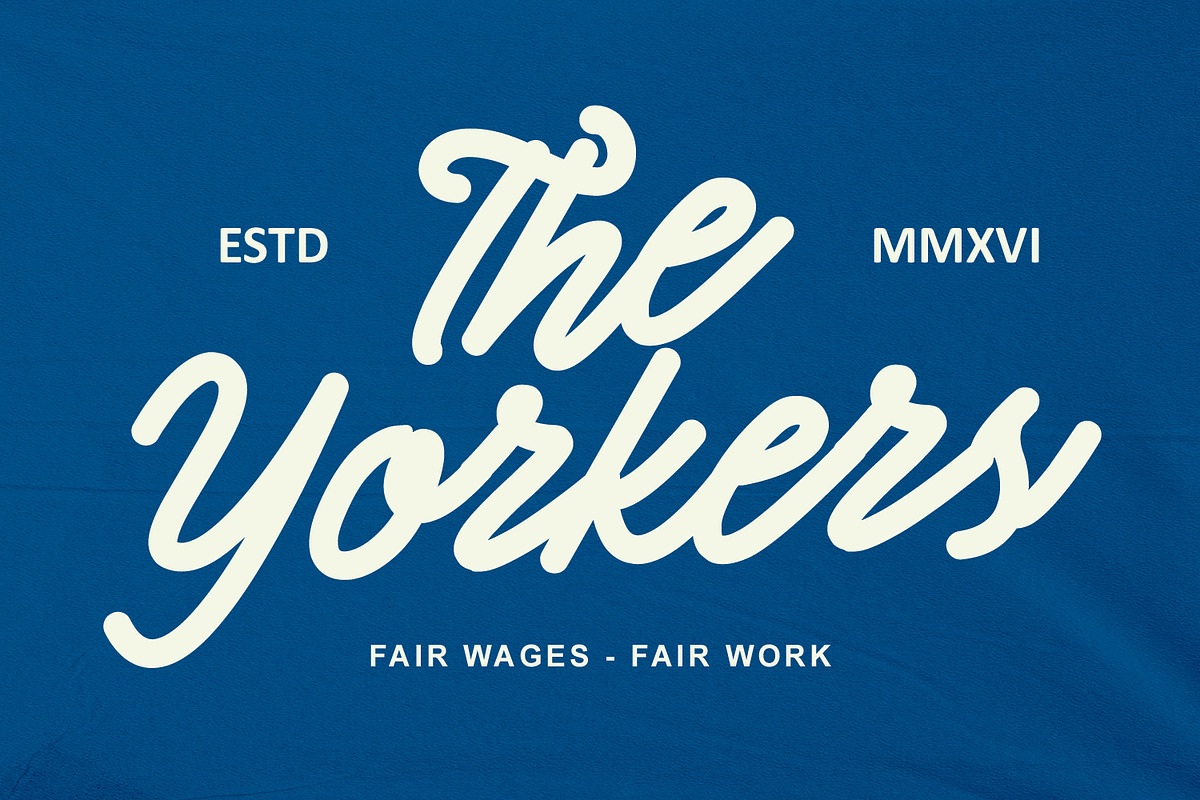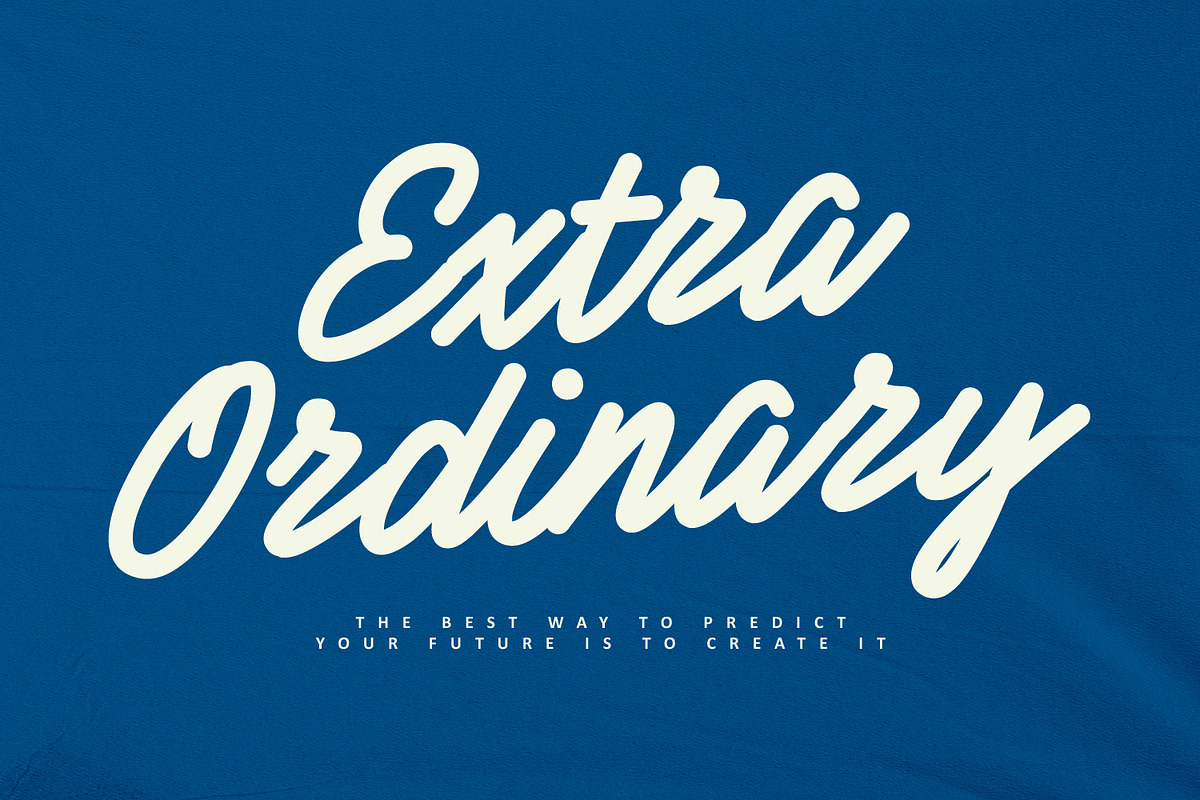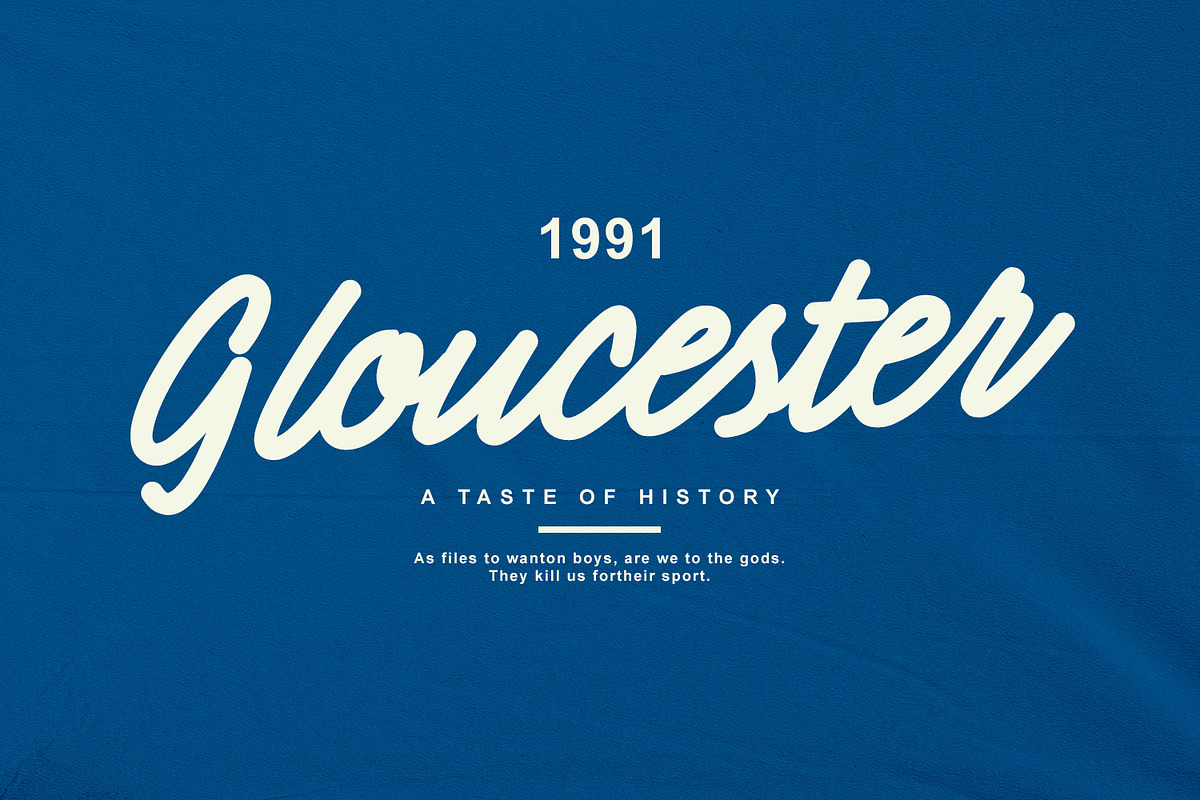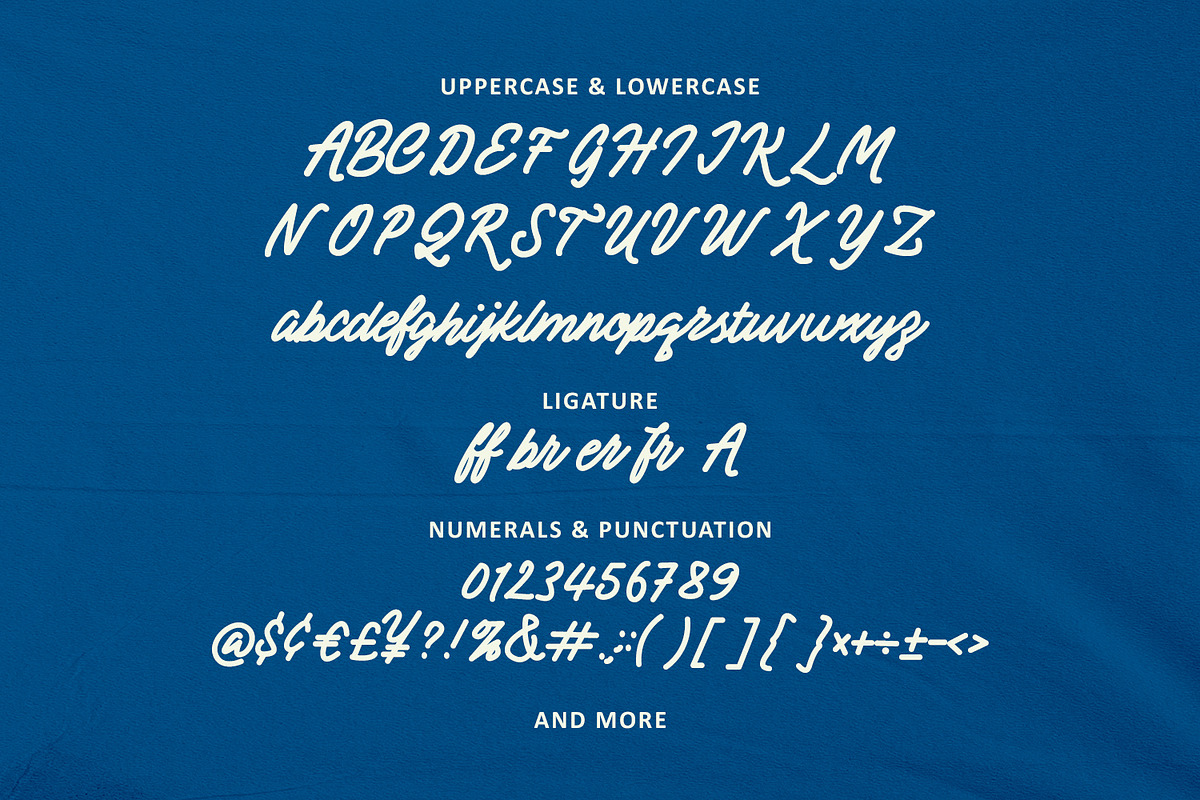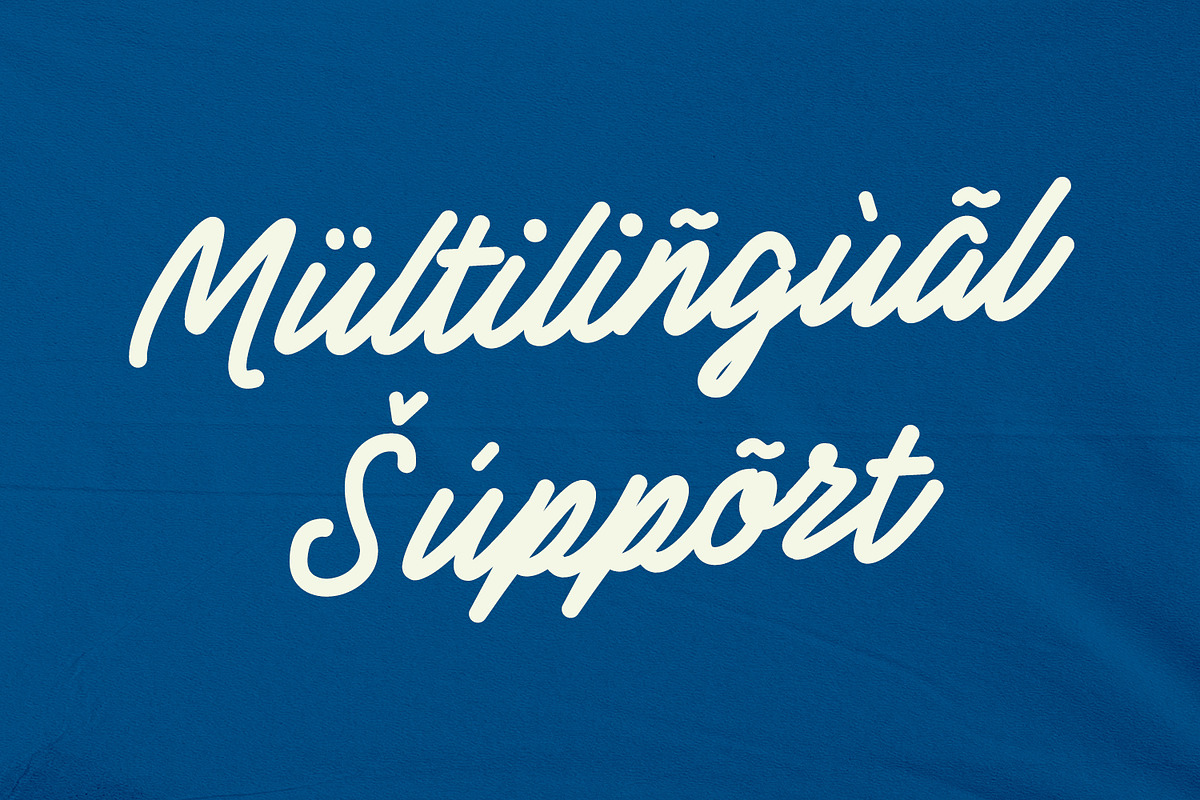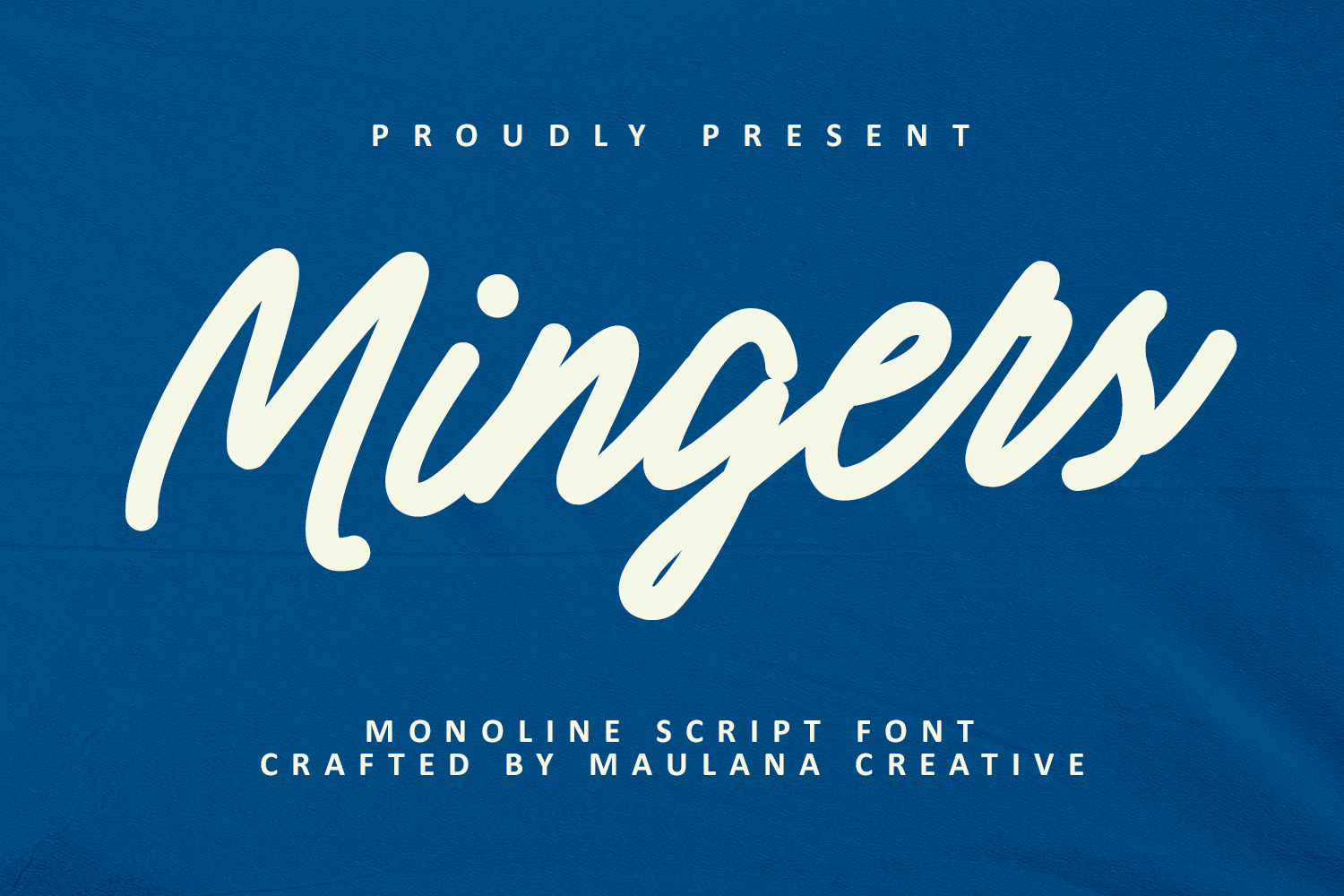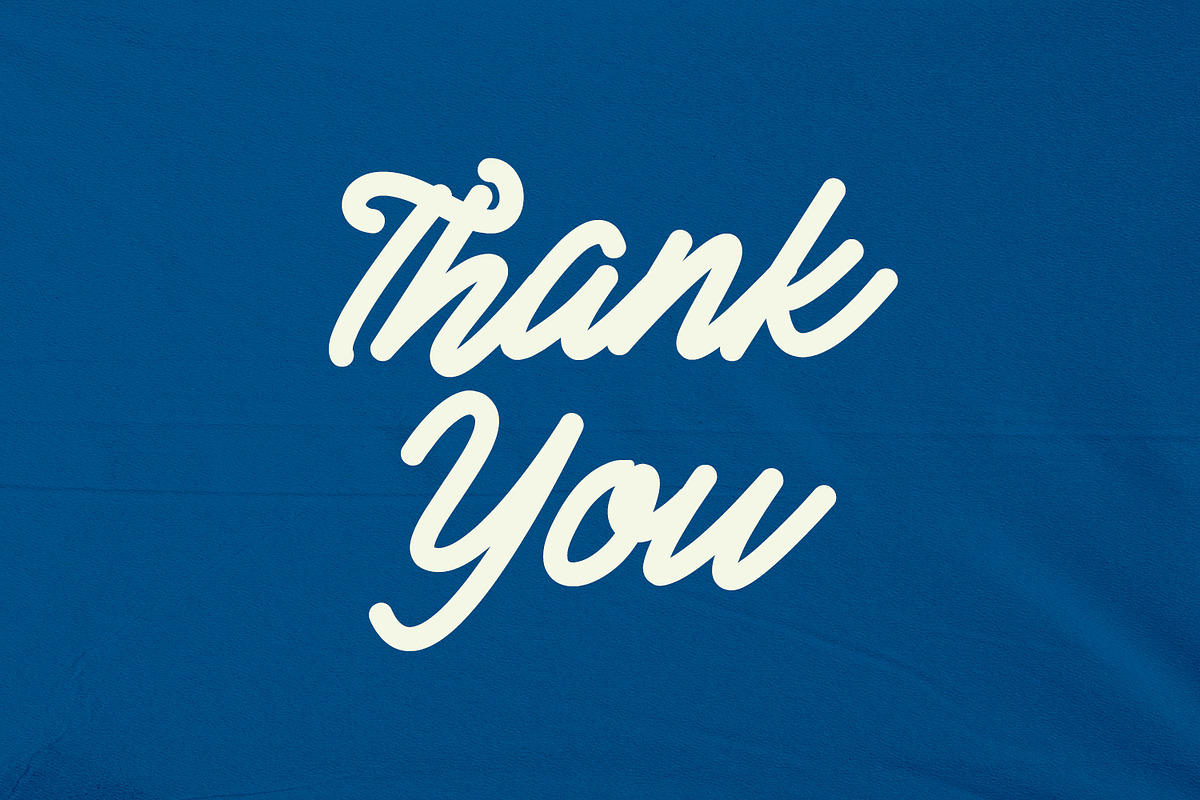
Mingers Monoline Script Font
Mingers is an unique monoline retro script font. With regular contrast stroke, fun character with a bit of ligatures and alternates. To give you an extra creative work. Mingers font support multilingual more than 100+ language. This font is good for logo design, Social media, Movie Titles, Books Titles, a short text even a long text letter and good for your secondary text font with sans or serif. Make a stunning work with Mingers font.